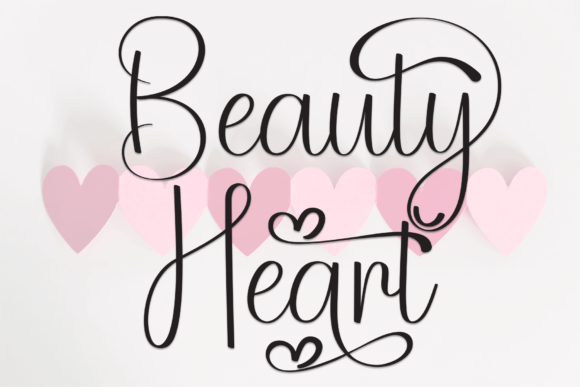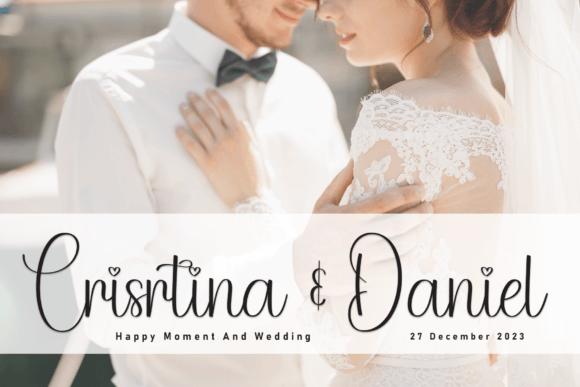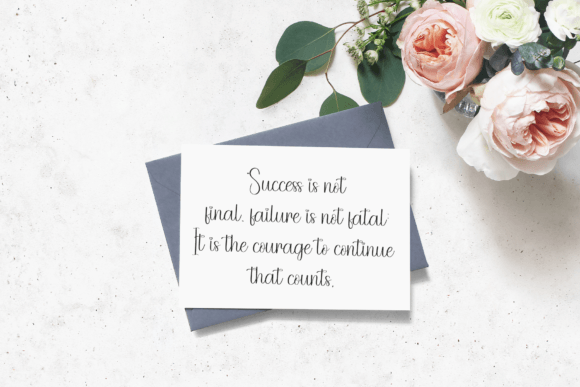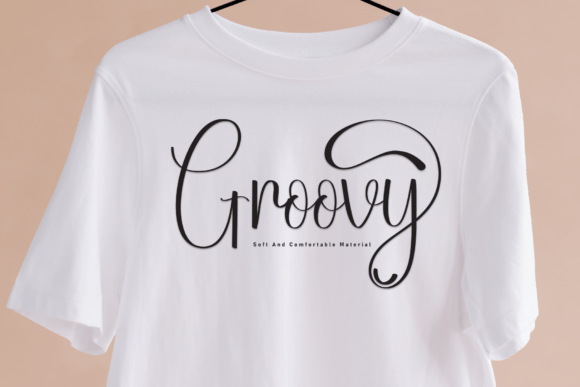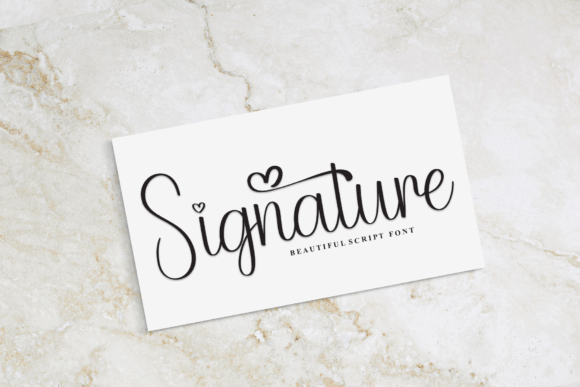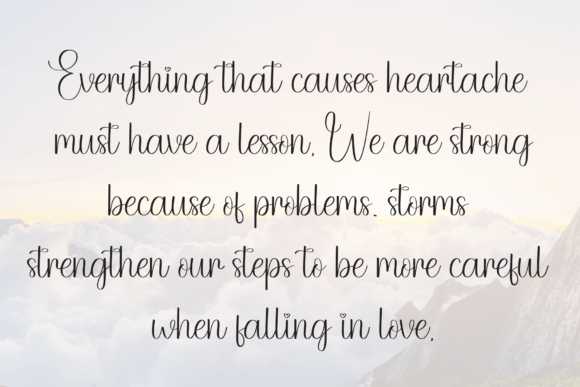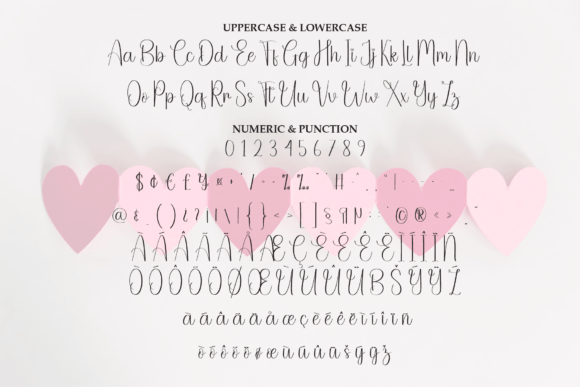
The Magic of Beauty Heart Font: Elevate Your Creativity
Have you ever stared at a blank canvas, eager to bring a unique idea to life, only to be held back by the perfect font to match your vision? That’s a feeling many designers can relate to. But what if you had the perfect script font at your fingertips, one that could transform your creative idea into a stunning work of art?
Enter the Beauty Heart Font, a beautifully crafted script font that exudes elegance and sophistication. Whether you’re designing for Instagram, crafting calligraphy scripts for DIY projects, or simply looking for a font that adds a touch of magic to your creations, the Beauty Heart Font is sure to impress. With its versatility and charm, it’s no wonder this font has become a go-to choice for designers seeking to elevate their projects to the next level.
Beauty Heart Font Key Features
- Font Type: Script Font, a beautiful and elegant script font
- Unique Characteristics: Whimsical and romantic feel, perfect for wedding invitations, greeting cards, and other feminine designs
Beauty Heart Font Review
Overall, I think the Beauty Heart Font has some lovely qualities that make it a great addition to any design project. ✨ Its flowing lines and delicate curves evoke a sense of whimsy and romance, perfect for creating a feminine or vintage aesthetic. ✨ The font also includes a wide range of characters, including punctuation and numbers, which makes it a great choice for body text.
One of the things I appreciate about the Beauty Heart Font is its versatility. ✨ It works well for both digital and print projects, and can be used in a variety of contexts, from wedding invitations to fashion branding.
- Flowing lines and delicate curves create a sense of whimsy and romance
- Wide range of characters, including punctuation and numbers
- Versatile and works well for both digital and print projects
- May be too ornate for some design projects
- Some characters may be difficult to read at small font sizes
- Lacks bold and italic styles for added emphasis
Overall, I think the Beauty Heart Font is a lovely addition to any designer’s toolkit. While it may have some limitations, its unique aesthetic and versatility make it a great choice for designers looking to add a touch of whimsy to their projects.
The Beauty Heart Font is perfect for adding a touch of elegance and romance to your designs. Common use cases include:
- Valentine’s Day and anniversary designs.
- Women’s fashion and beauty branding.
Alternatives to Beauty Heart Font for Designers
Great Vibes is a beautiful, elegant script font that is perfect for creating a romantic and whimsical feel. It is ideal for use in wedding invitations, greeting cards, and other designs where a touch of sophistication is needed.
Compared to Beauty Heart Font, Great Vibes has a more refined and delicate look, making it suitable for formal and high-end designs. While Beauty Heart Font is more playful and cursive, Great Vibes is more elegant and refined.
Copperplate is a classic script font that is reminiscent of the elegant handwriting from the 18th century. It is perfect for use in designs where a touch of nostalgia and sophistication is needed.
Compared to Beauty Heart Font, Copperplate has a more formal and traditional look, making it suitable for use in formal invitations, certificates, and other documents. While Beauty Heart Font is more playful and cursive, Copperplate is more elegant and refined.
What is the recommended font size for the Beauty Heart Font?
The recommended font size for the Beauty Heart Font varies depending on the application and the desired effect. However, a good starting point is to use the font at a size between 12-24 points. This will ensure that the font is legible and visually appealing in most design applications.